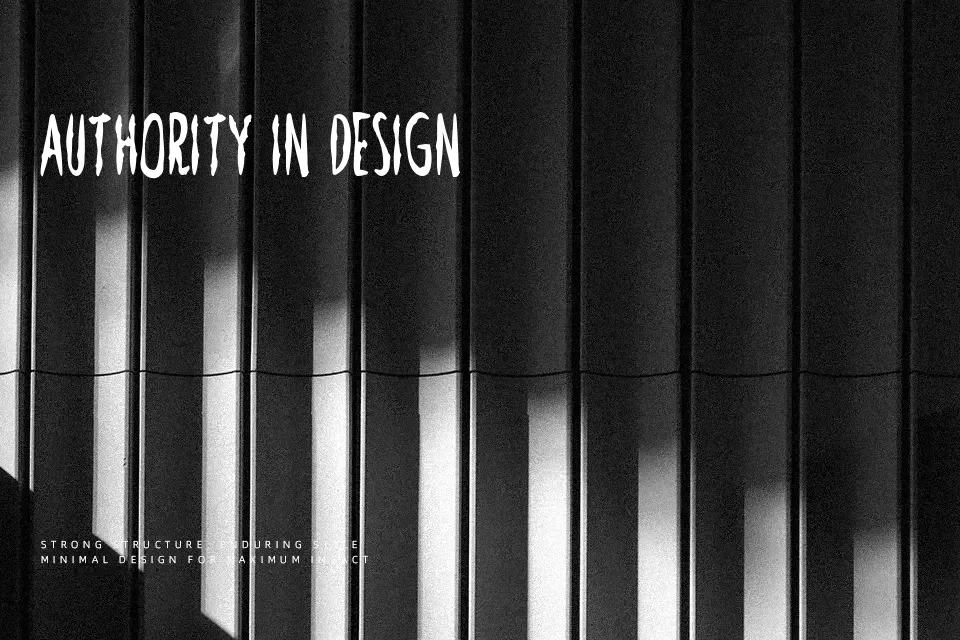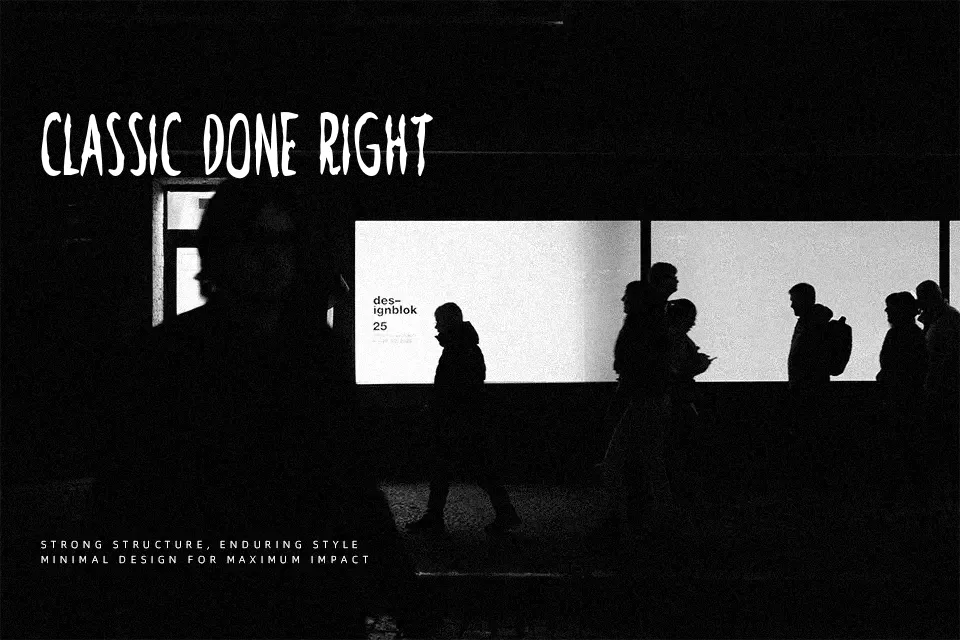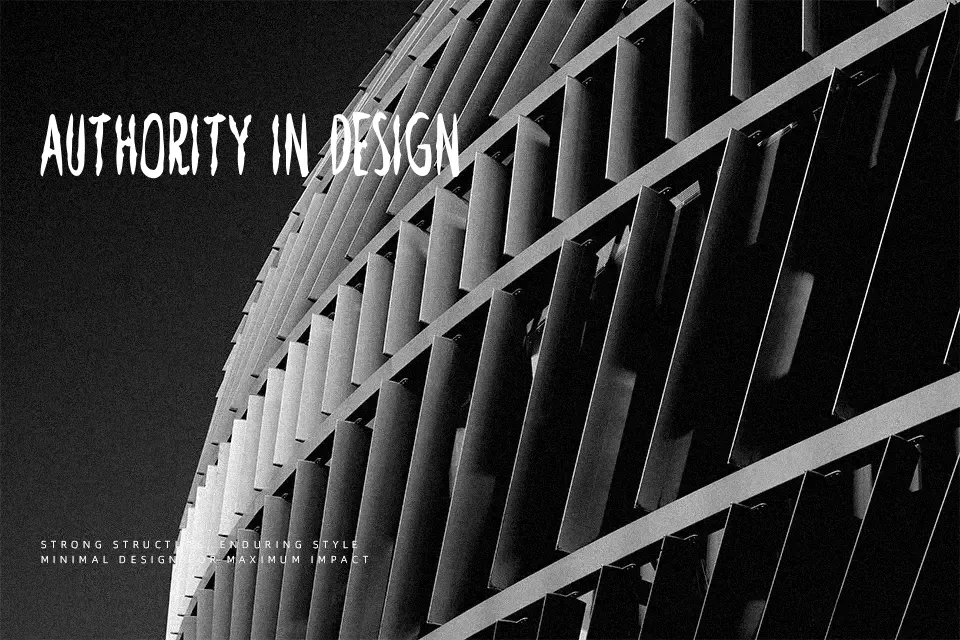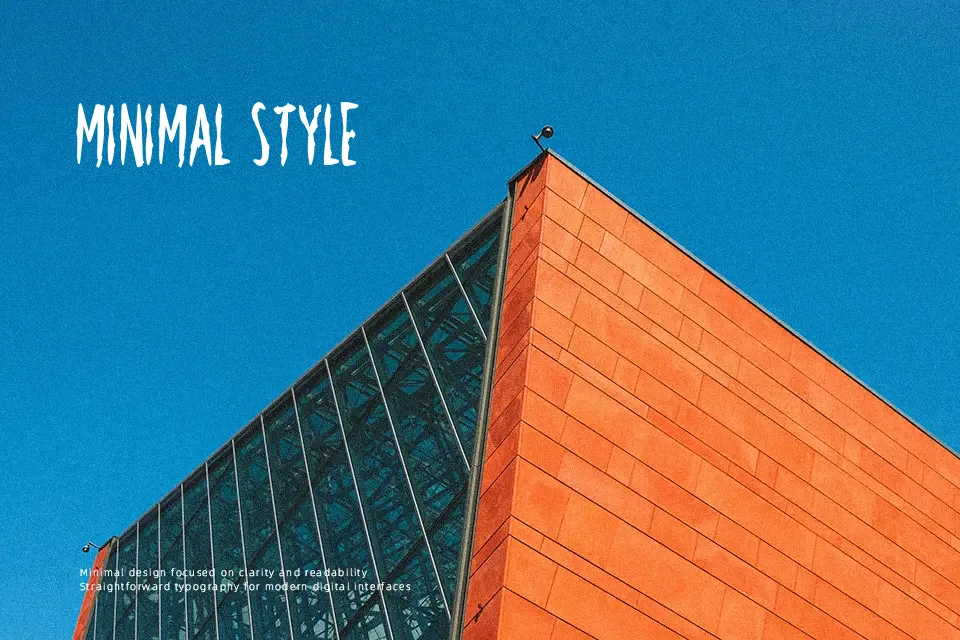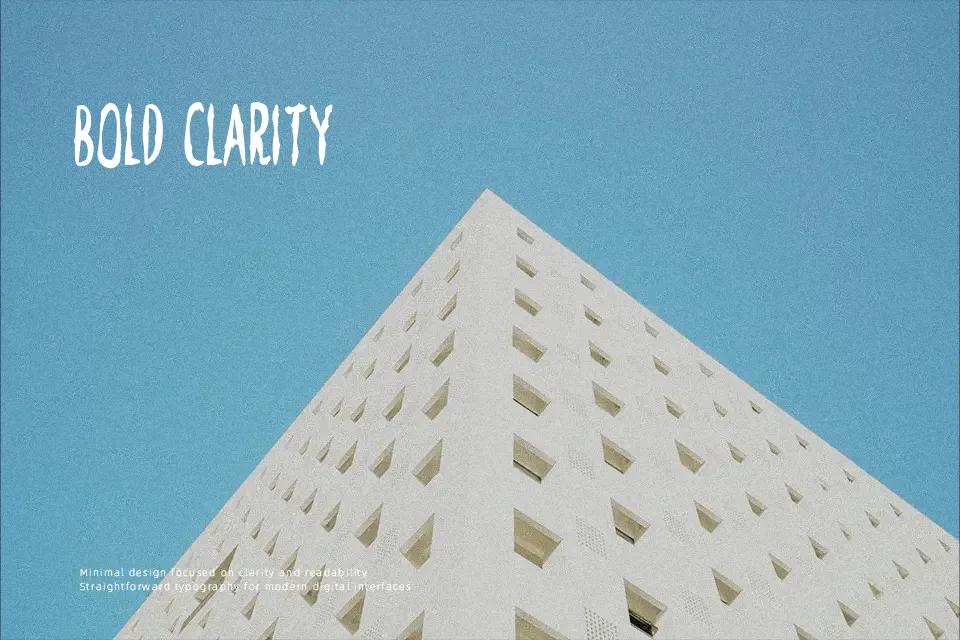
Nevermore Font
Nevermore uses dark, decorative letterforms with sharp edges, uneven contours, and a tightly packed rhythm that gives it a strong display presence. The structure feels compact and dramatic, which helps it stand out in headlines, but the detail level makes smaller text harder to read. It works best for horror posters, album art, and themed branding, while long paragraphs and small UI text will lose clarity.
Best For: horror posters,album art,themed branding,event banners
Not Ideal For: long paragraphs,small UI text,legal documents,dense interface labels
Perfect for film, headline, and music, with a dark and decorative style.